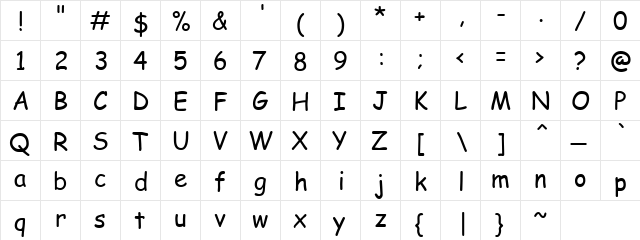
Critter Regular Font Preview
Critter Regular
Design Context for Critter Typeface
Critter offers clean, dependable letterforms without strong stylistic allegiance, making it a practical choice for designers who need flexibility.